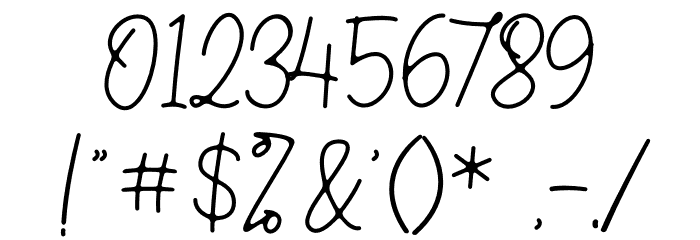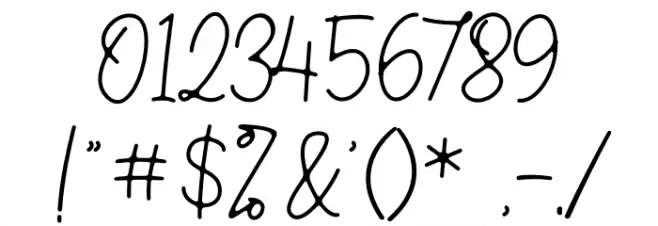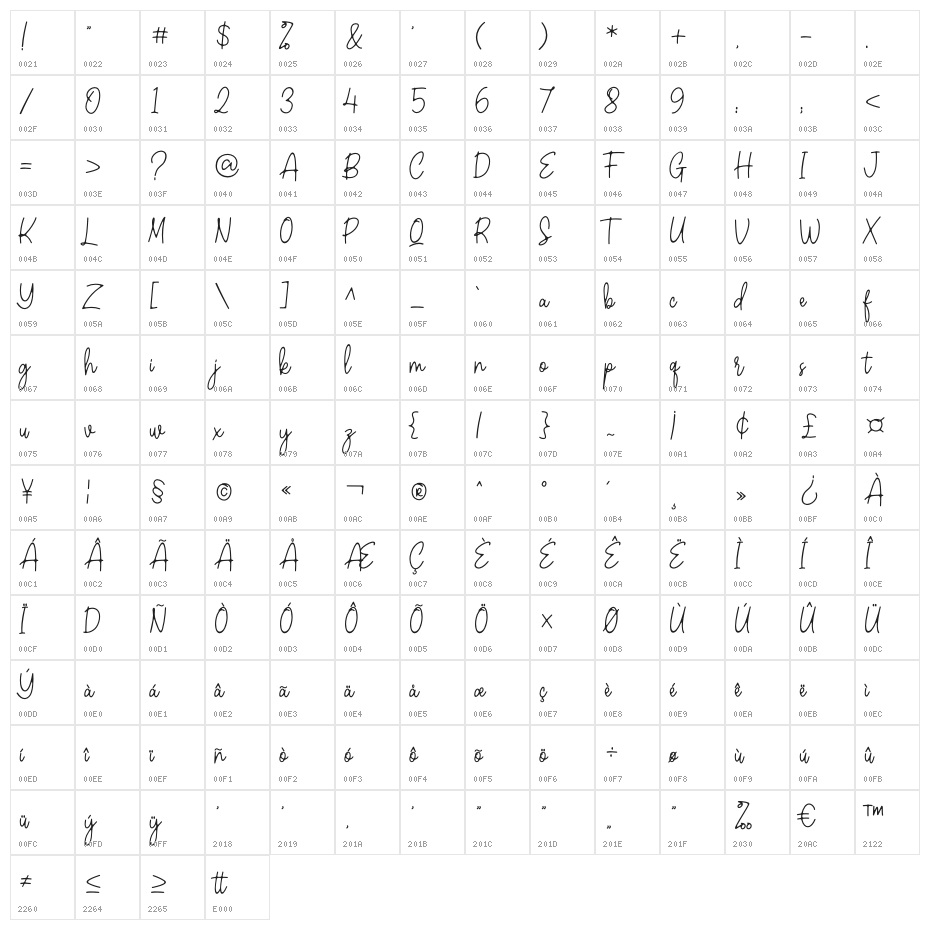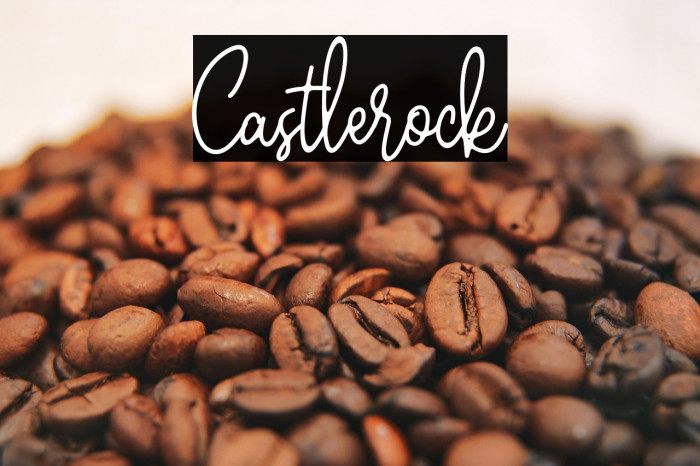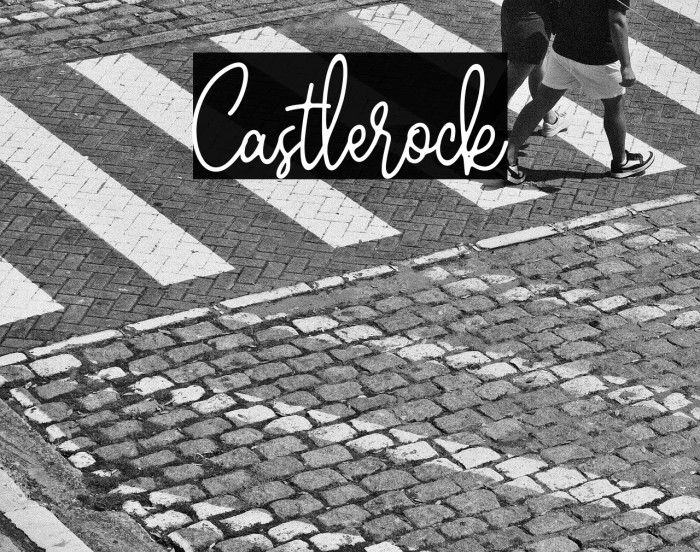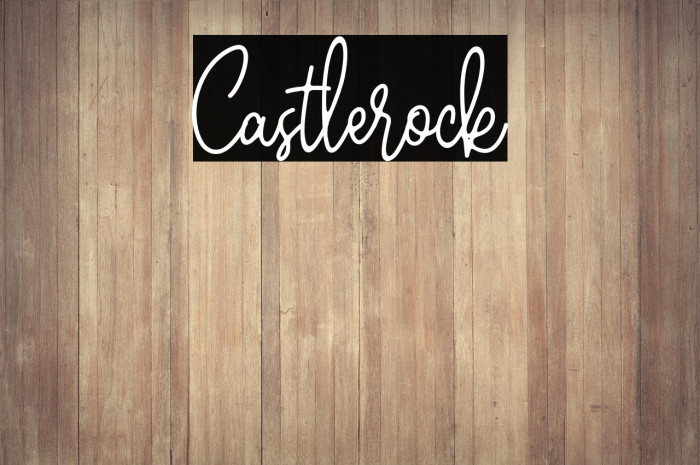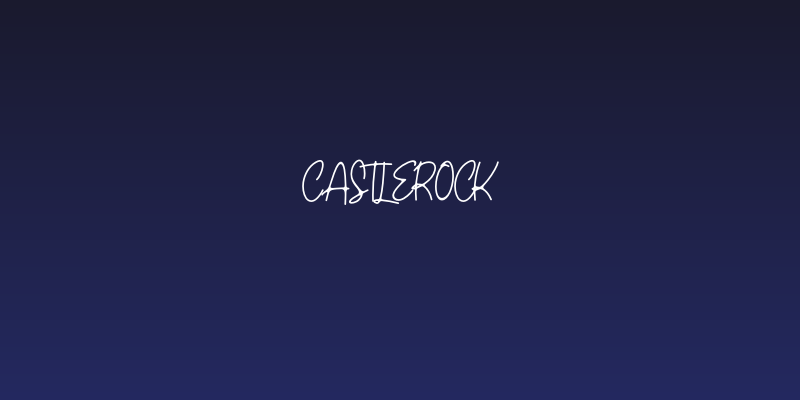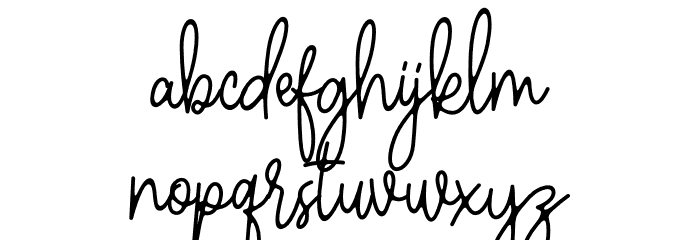
Castlerock Font
Castlerock Description
This font features a playful, handwritten style with a casual and flowing appearance. The uppercase letters are tall and slightly narrow, with a consistent stroke width that gives them a clean and modern look. The lowercase letters maintain a similar style, with a slight slant that adds to the handwritten feel. Numbers are well-proportioned and align seamlessly with the overall aesthetic. Special characters are creatively designed, maintaining the playful and informal tone of the font. The overall design is cohesive, making it suitable for projects that require a personal touch.